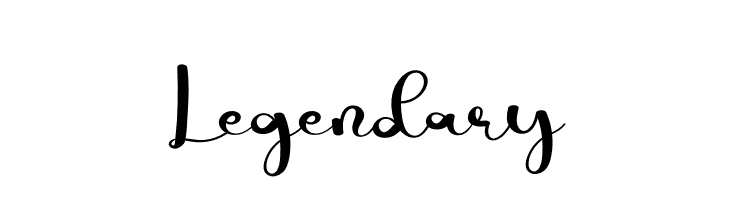
A playful, handwritten script font with dynamic, looping strokes.
A lively and elegant script font with flowing, high-contrast letterforms.
A playful and elegant script font with flowing, interconnected letterforms.
A playful, bold script font with flowing, interconnected letters.
A whimsical, cursive script font with elegant, flowing strokes.
A playful, casual handwritten font with tall, narrow letters and a slight slant.